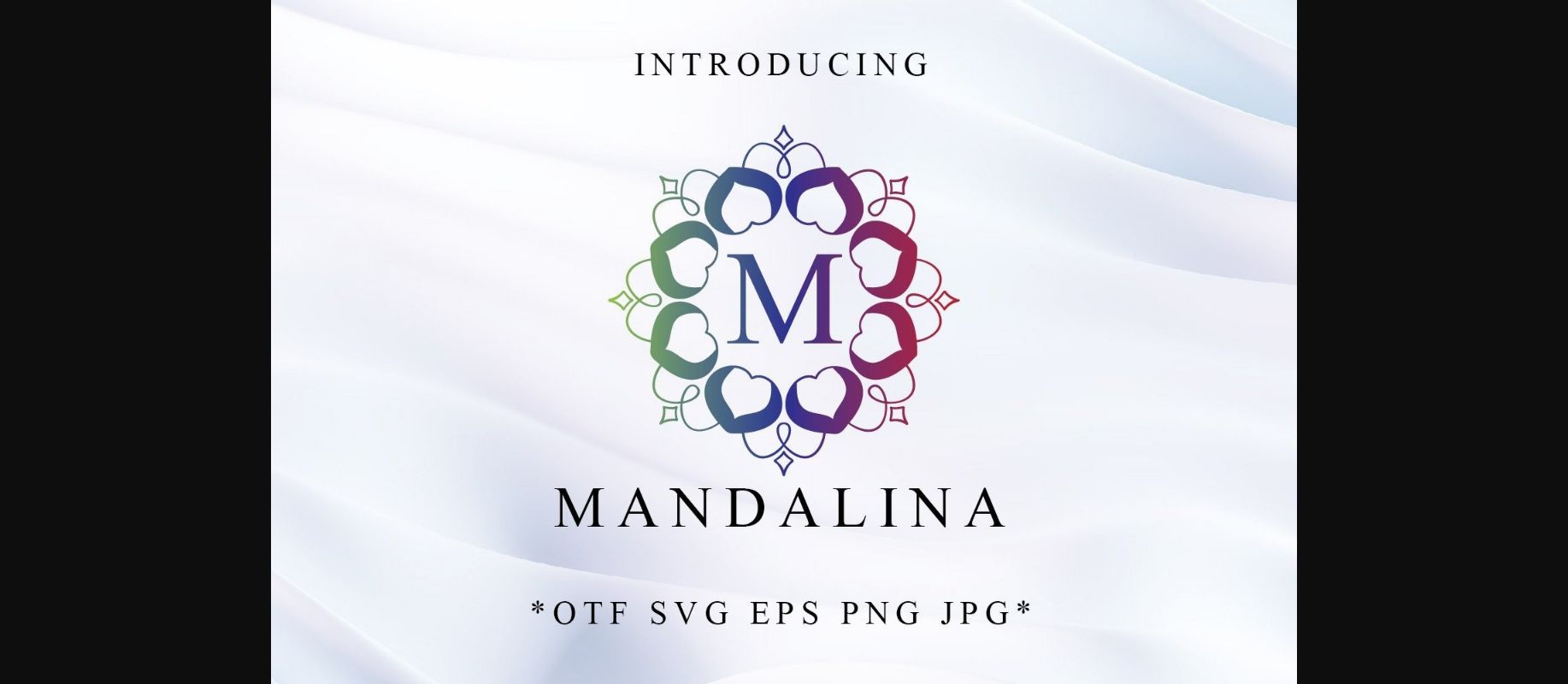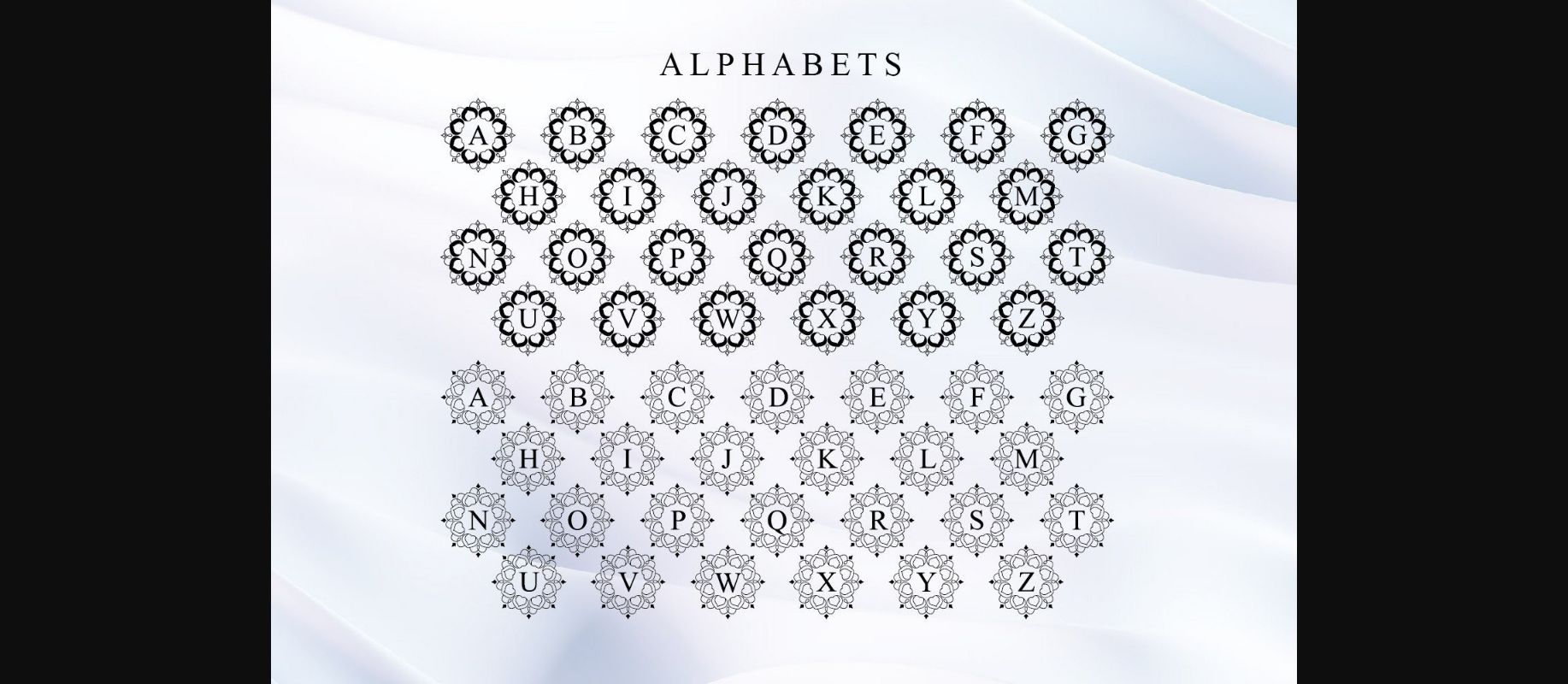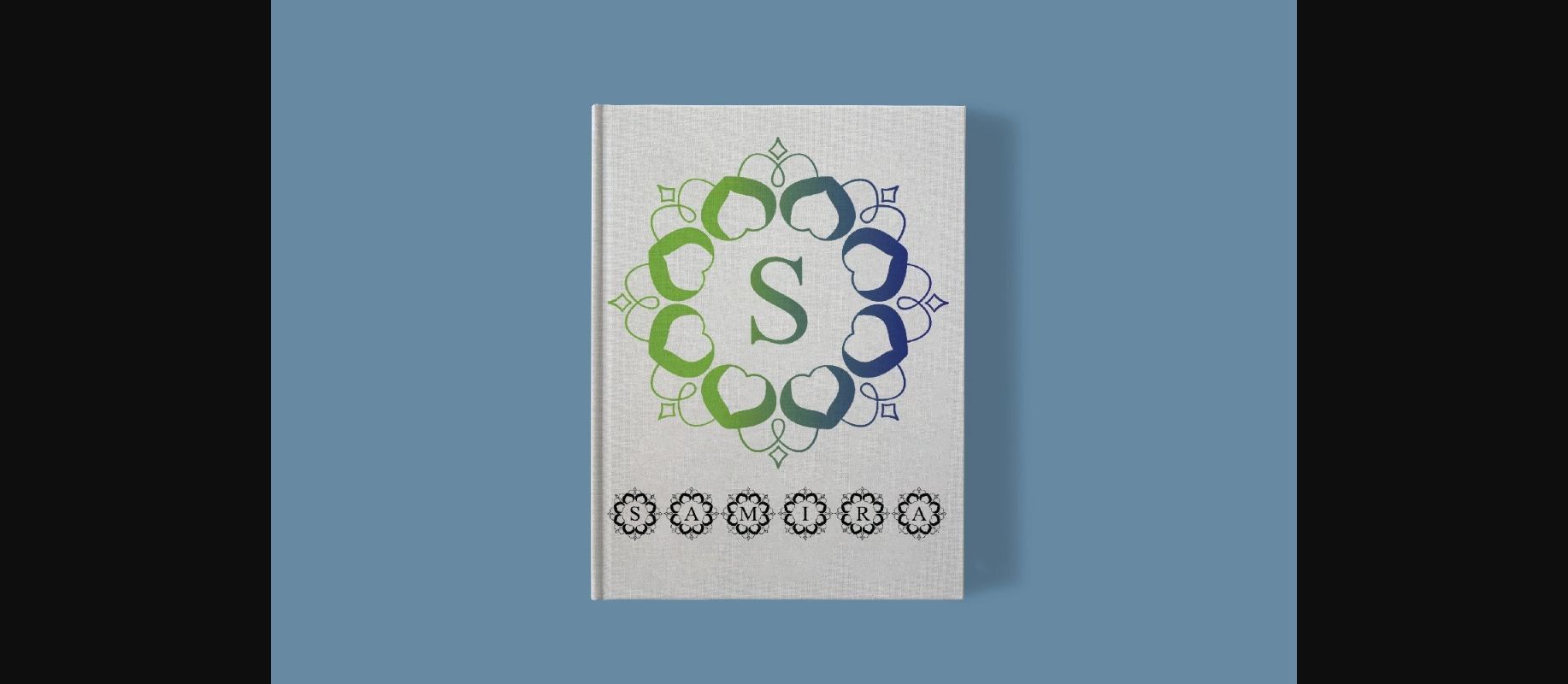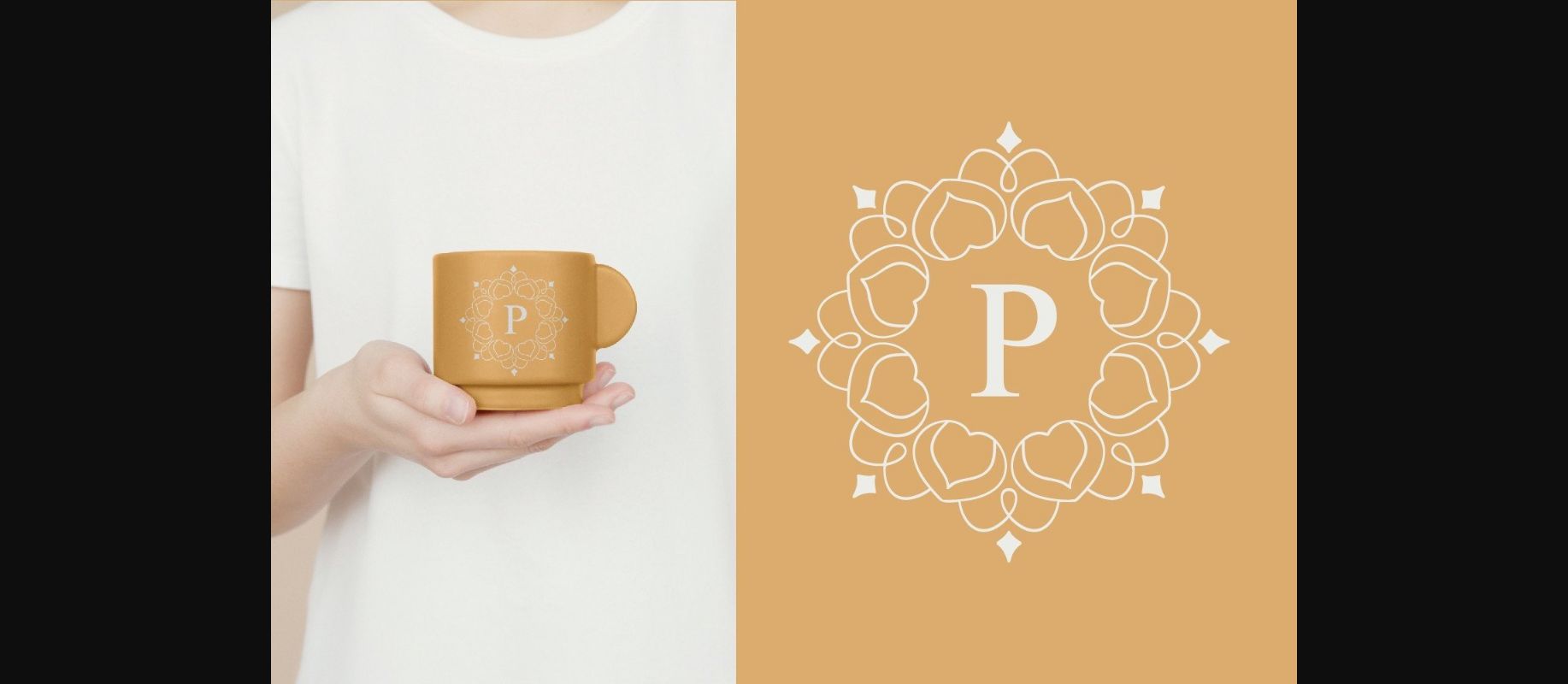
About Mandalina Font
Mandalina is a unique and intricate monogram decorative font. Add this elegant font to each of your love letters, wedding invitations, or favorite design ideas, and you will be astounded by the outcome.